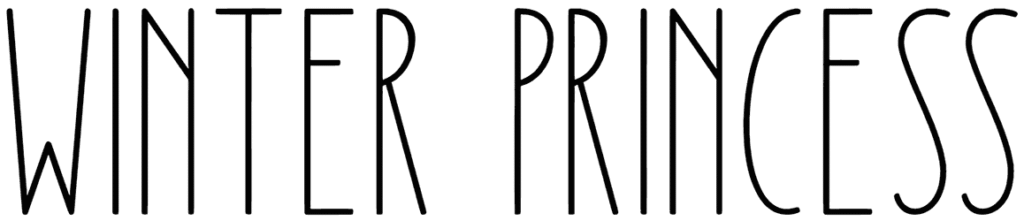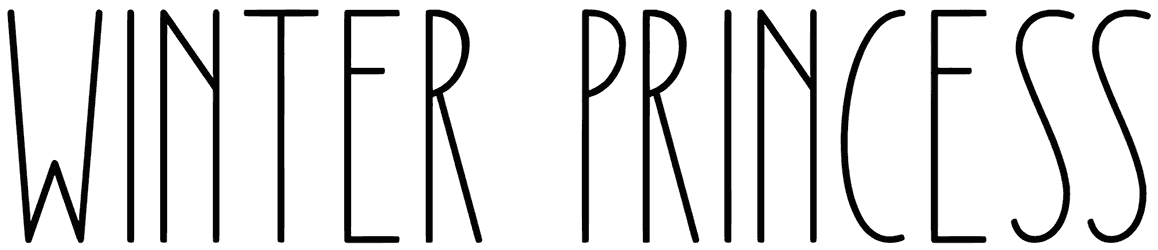
Winter Princess Font
Winter Princess is a delicate handwritten font that comes with thin and tall characters, thus instilling a feeling of personalization, comfort, modernity, or vivacity in the audience’s minds and easily convincing them to follow all of your graphic content, including illustrations, book covers, business cards, logos, or blog posts.
This all-caps minimalist font can be your game-changer in satisfying the customers, so never overlook it.